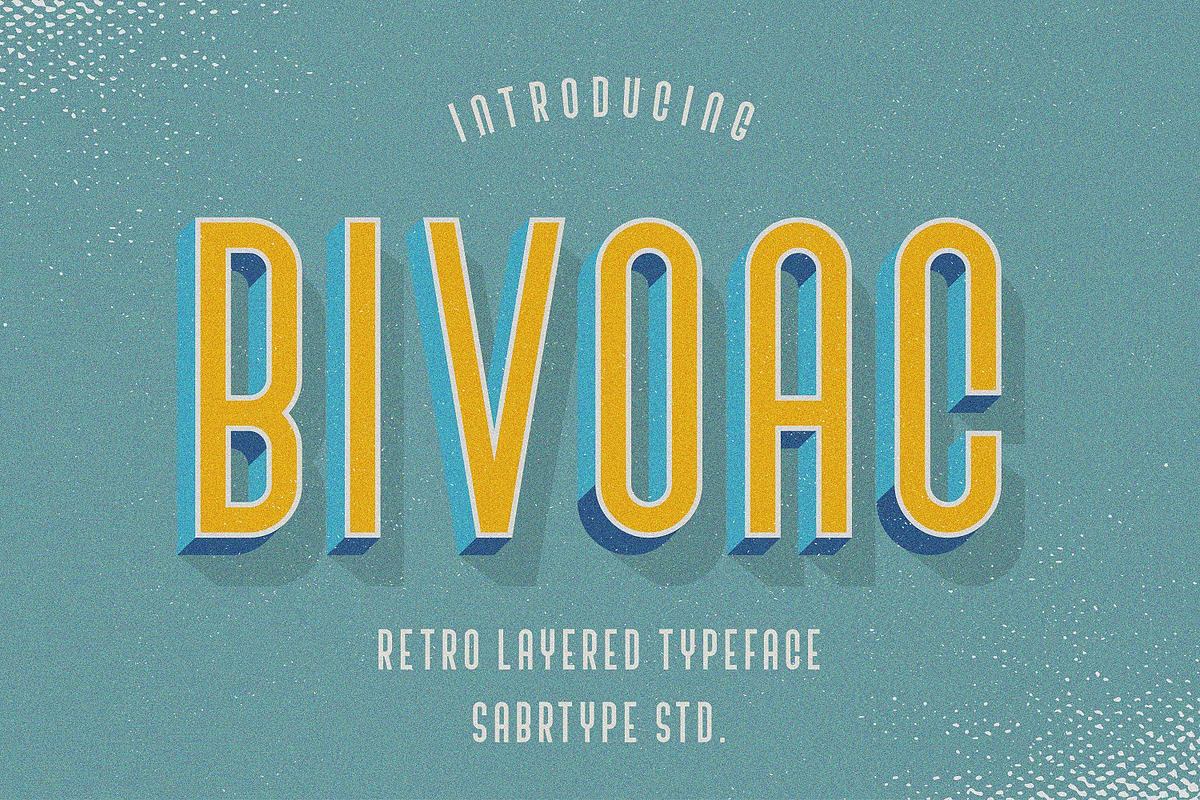
Bivoac Layered Font Free Download
Bivoac Layered Font Free Download is a creative and versatile layered typeface that offers a unique and modern aesthetic. Featuring multiple layers that allow you to experiment with textures, shadows, and colors, Bivoac gives you the flexibility to create dynamic, eye-catching designs. Perfect for logos, posters, packaging, headlines, and branding, this font adds depth and impact to any project.
With its ability to create layered effects, Bivoac is ideal for those looking to add a sense of dimension and creativity to their typography. Whether you're working on retro-style designs or modern branding projects, this font offers endless possibilities for customization.